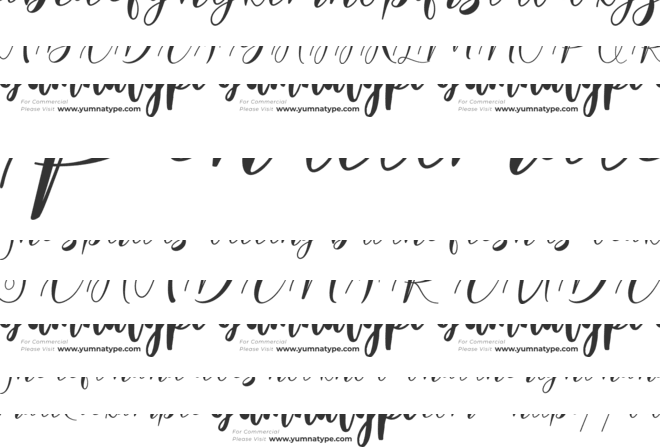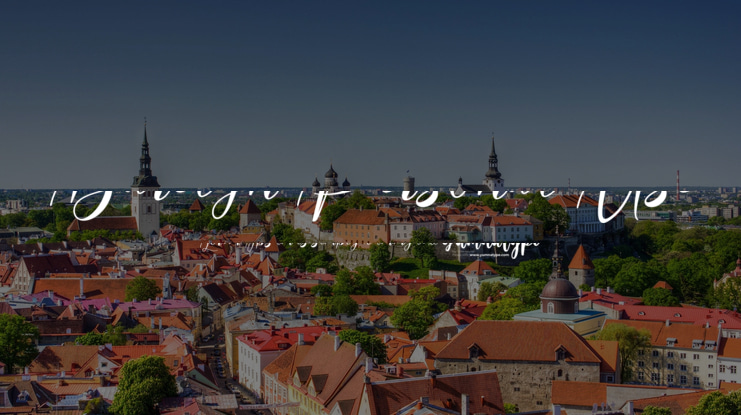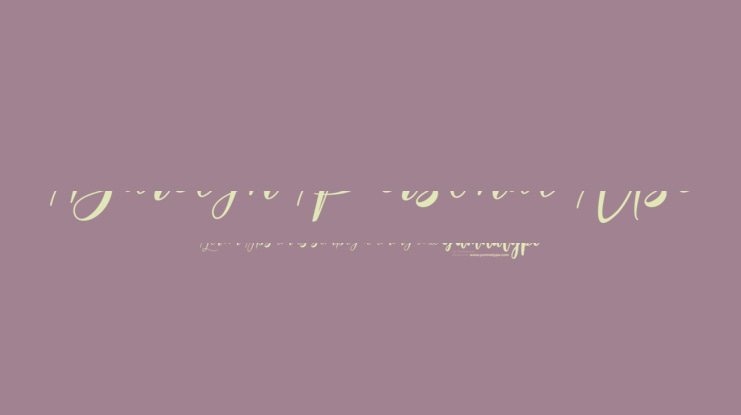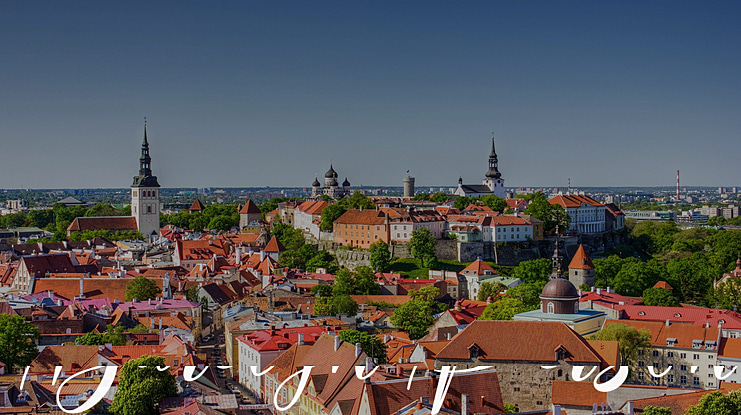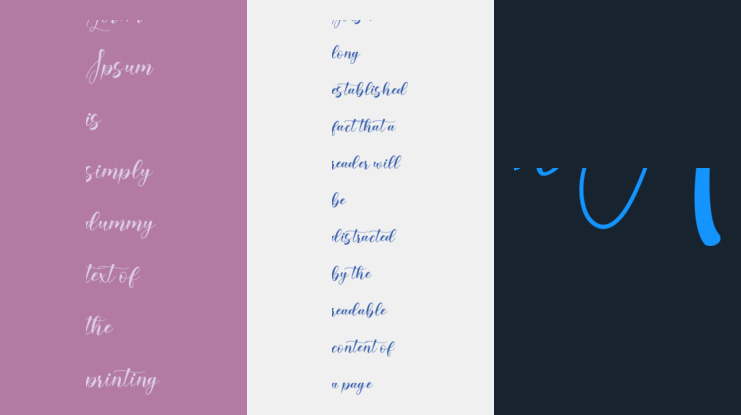
Say hello to Barelyn Script.
Barelyn is a beautiful and modern script.
It brings a beautiful and modern typeface that best used for weddings, branding, logotype, and quotes.